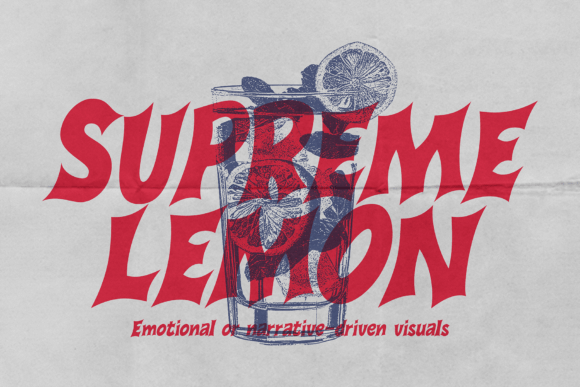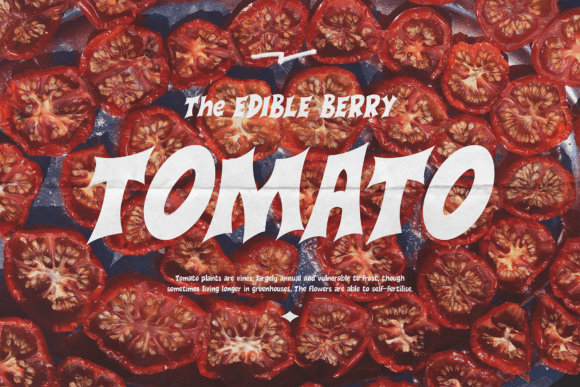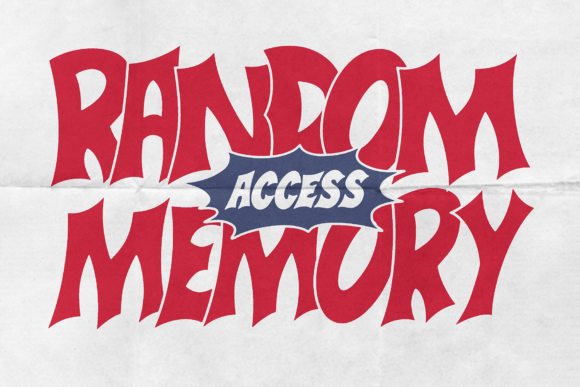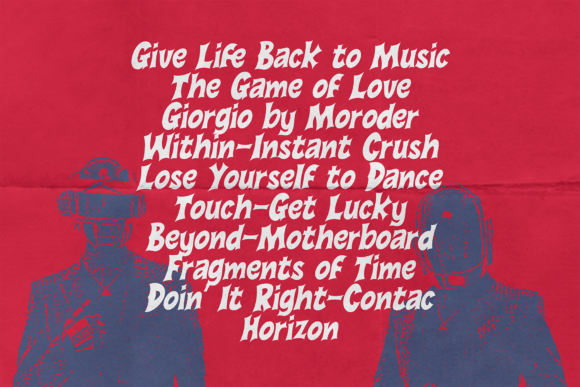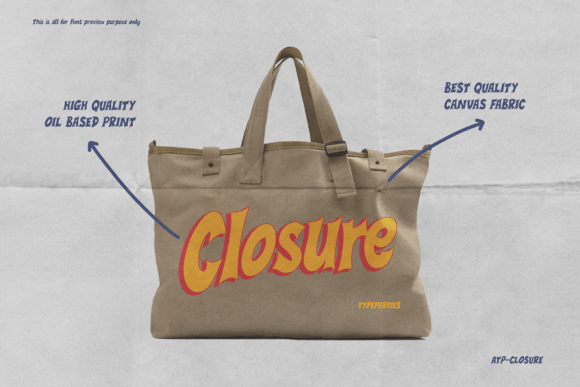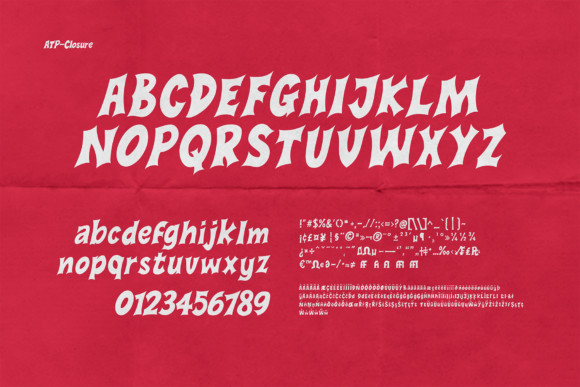
Introducing Closure Font: A Dynamic Display Font with Retro Flair
In the world of typography, fonts play a crucial role in conveying messages, evoking emotions, and making a lasting impression. For designers and crafters looking for a font that exudes confidence, personality, and visual drama, Closure Font is an excellent choice. This dynamic display font seamlessly fuses retro nostalgia with a contemporary edge, making it perfect for headlines, branding, and editorial designs that demand attention.
The Inspiration Behind Closure Font
Closure Font draws inspiration from vintage advertising and expressive typographic posters, which were known for their bold, eye-catching typography. The font’s creator aimed to capture the essence of these classic designs while infusing them with a modern twist. The result is a font that evokes a sense of finality and emotional intensity, making it ideal for projects where making a statement is crucial.
Key Features of Closure Font
So, what sets Closure Font apart from other display fonts? Here are some of its key features:
- High Contrast Strokes: Closure Font boasts high contrast strokes that add depth and visual interest to each letterform. This feature creates a sense of dynamism, making the font perfect for headlines and titles.
- Sharp Angular Cuts: The font’s sharp angular cuts add a touch of sophistication and edginess, giving it a contemporary feel.
- Bold Curves: The bold curves in Closure Font provide a sense of fluidity and elegance, balancing out the sharpness of the angular cuts.
- Sculptural Rhythm: The font’s sculptural rhythm creates a sense of movement and energy, making it perfect for projects that require visual drama.
- Exaggerated Forms: Closure Font’s exaggerated forms add to its personality and visual impact, making it ideal for branding and editorial designs.
Use Cases for Closure Font
Closure Font is a versatile display font that can be used in a variety of projects, including:
- Headlines and Titles: The font’s bold, attention-grabbing design makes it perfect for headlines and titles in newspapers, magazines, and online publications.
- Branding and Logo Design: Closure Font’s unique personality and visual drama make it an excellent choice for branding and logo design projects.
- Editorial Design: The font’s sculptural rhythm and exaggerated forms make it ideal for editorial designs, such as book covers, posters, and flyers.
Why Choose Closure Font?
With so many display fonts available, why choose Closure Font? Here are a few reasons:
- Unique Personality: Closure Font has a distinct personality that sets it apart from other fonts.
- Visual Drama: The font’s sculptural rhythm and exaggerated forms create a sense of visual drama, making it perfect for projects that require attention-grabbing typography.
- Versatility: Closure Font can be used in a variety of projects, from headlines and titles to branding and editorial designs.
In conclusion, Closure Font is a dynamic display font that offers a unique blend of retro nostalgia and contemporary edge. Its high contrast strokes, sharp angular cuts, and bold curves make it perfect for headlines, branding, and editorial designs that require visual drama and personality. With its sculptural rhythm and exaggerated forms, Closure Font is an excellent choice for designers and crafters looking to make a statement.